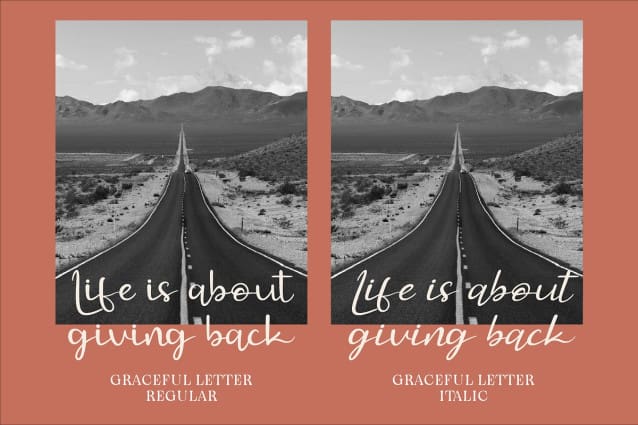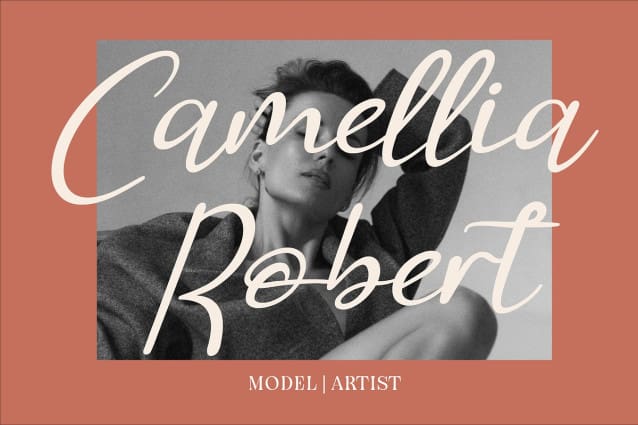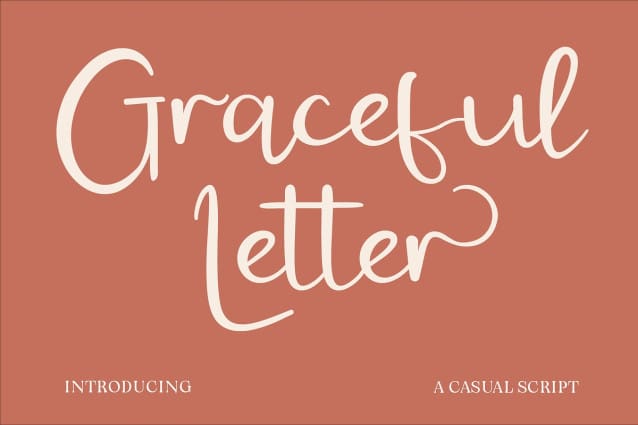
CF Graceful Letter Font
CF Graceful Letter is a casual script font that balances elegance and approachability with its flowing, effortless strokes. Its charming, handwritten style makes it ideal for creating warm, personal designs that resonate with authenticity and care. Whether you’re designing invitations, branding materials, or social media graphics, CF Graceful Letter brings a unique and friendly touch to your projects. With its graceful curves and casual vibe, this font is perfect for adding personality and charm to any creative endeavor.